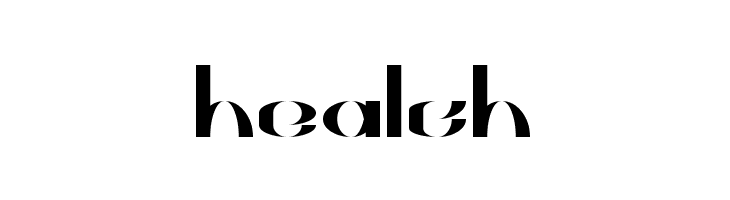
A playful collection of octopus illustrations with unique accessories and expressions.
A bold, angular, and italicized font with a futuristic and dynamic style.
A bold, italicized script font with a textured, distressed look.
A modern, rounded sans-serif font with smooth curves and balanced spacing.
A playful, hand-drawn font with thin, rounded strokes and a whimsical style.
A tall, narrow, and modern font with clean lines and minimal curves.
A modern, artistic font with thin lines and geometric shapes.
A decorative font with charming animal illustrations for each character.